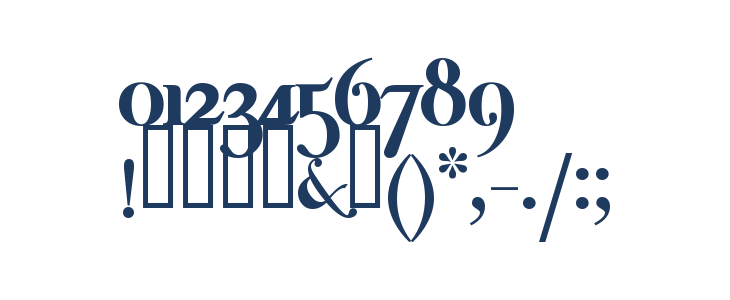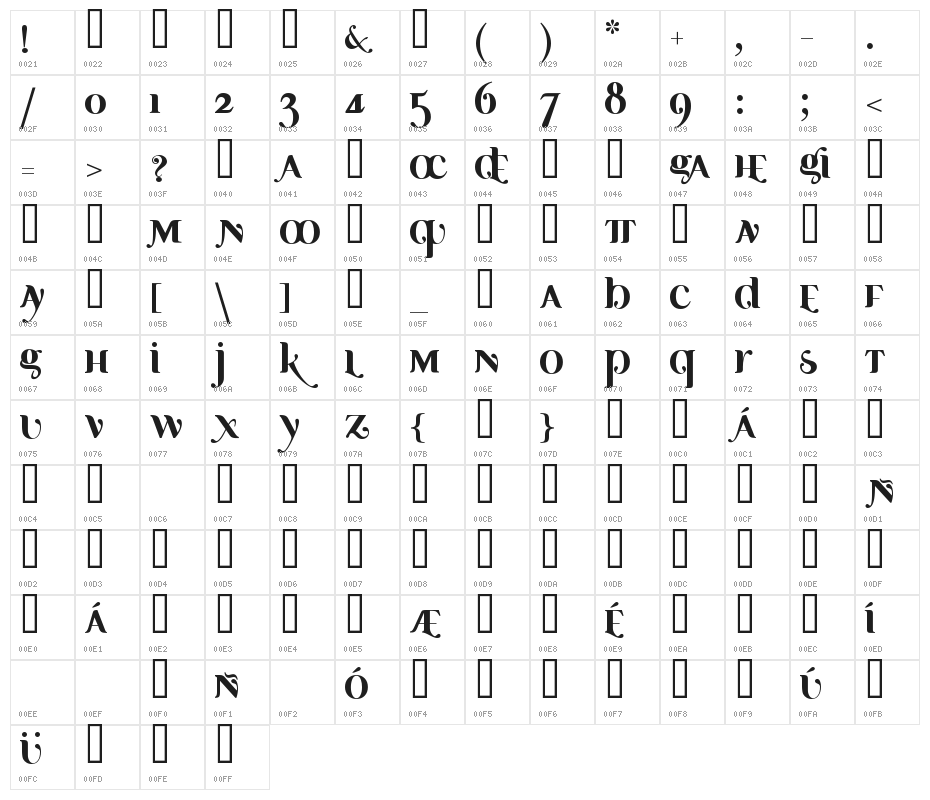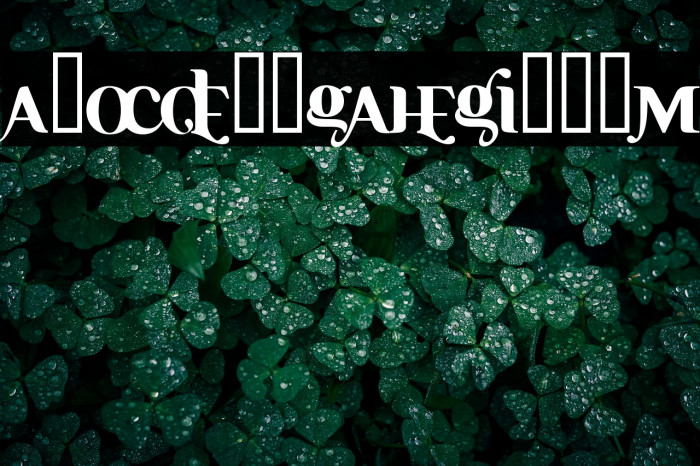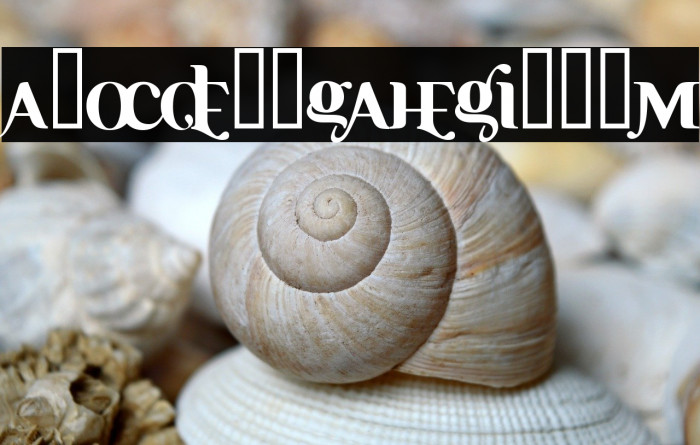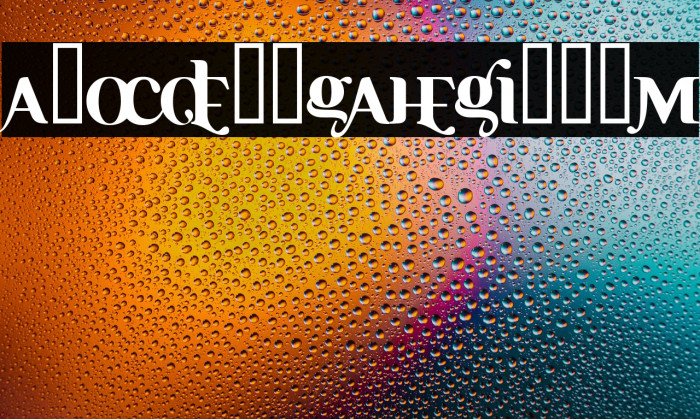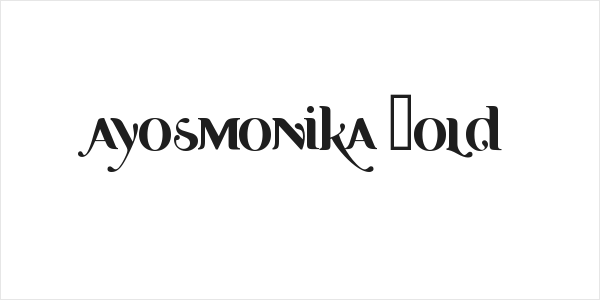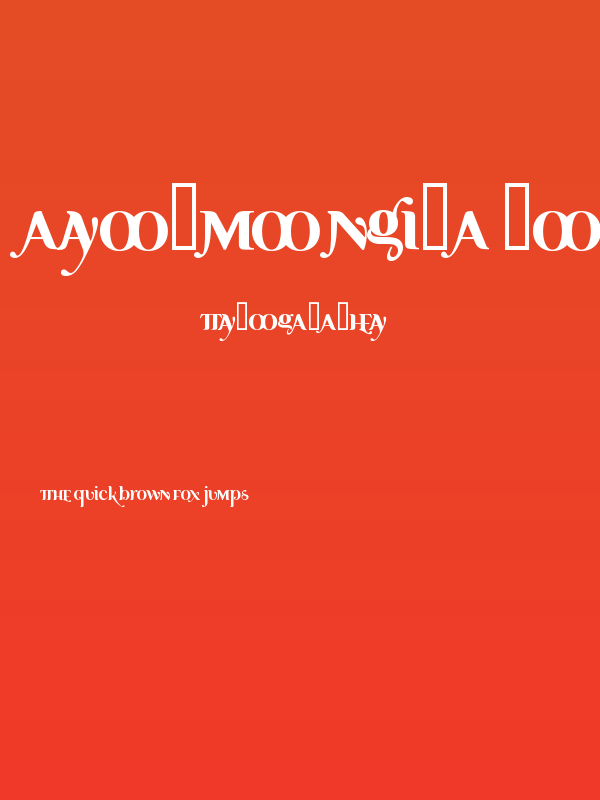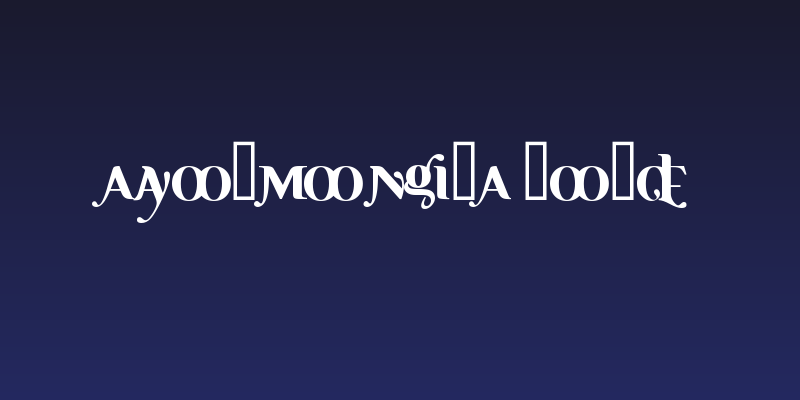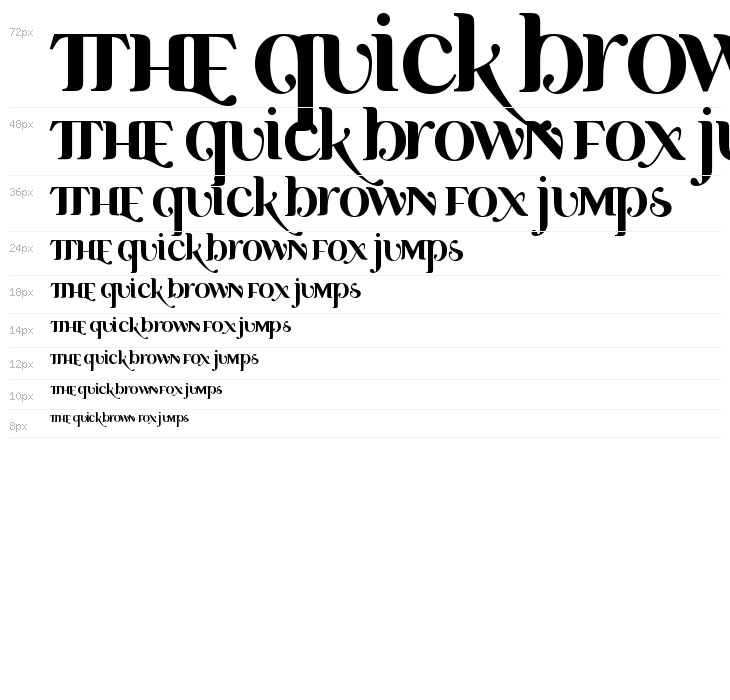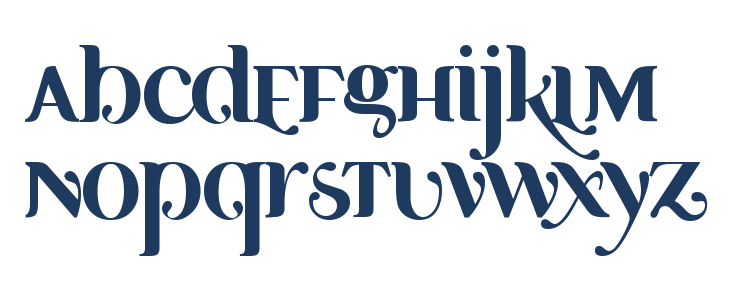
Ayosmonika Bold Font
Ayosmonika Bold Description
This font features a bold and dramatic style with high contrast between thick and thin strokes. The characters exhibit a unique blend of sharp angles and smooth curves, creating a dynamic and eye-catching appearance. The uppercase letters are particularly striking, with exaggerated serifs and flourishes that add a sense of elegance and sophistication. The lowercase letters maintain a consistent style, complementing the uppercase with their own distinctive flair. The numerals are bold and clear, ensuring readability while maintaining the overall aesthetic. Special characters are thoughtfully designed, fitting seamlessly into the font's cohesive look.